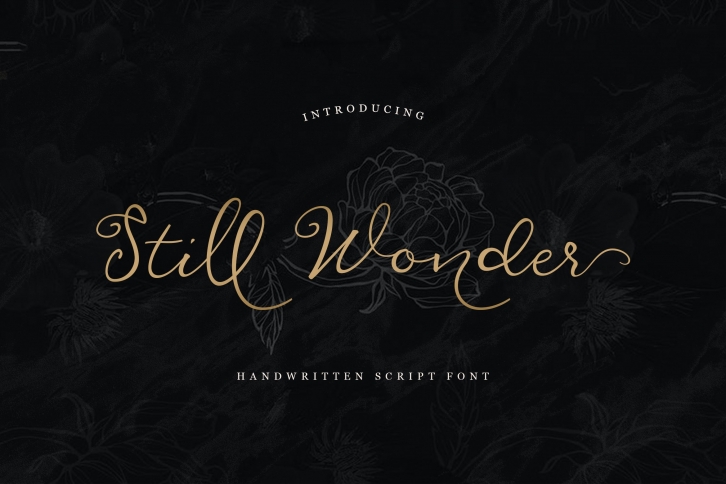
Still Wonder Script is a trendy and unique font with an authentic style. It was designed by Unicode Studio and it's a great choice for creative people who need such a font. It was released on July 7, 2020 and the file size is 9.6 MB. Still Wonder Script will add an organic vibe to any design idea!